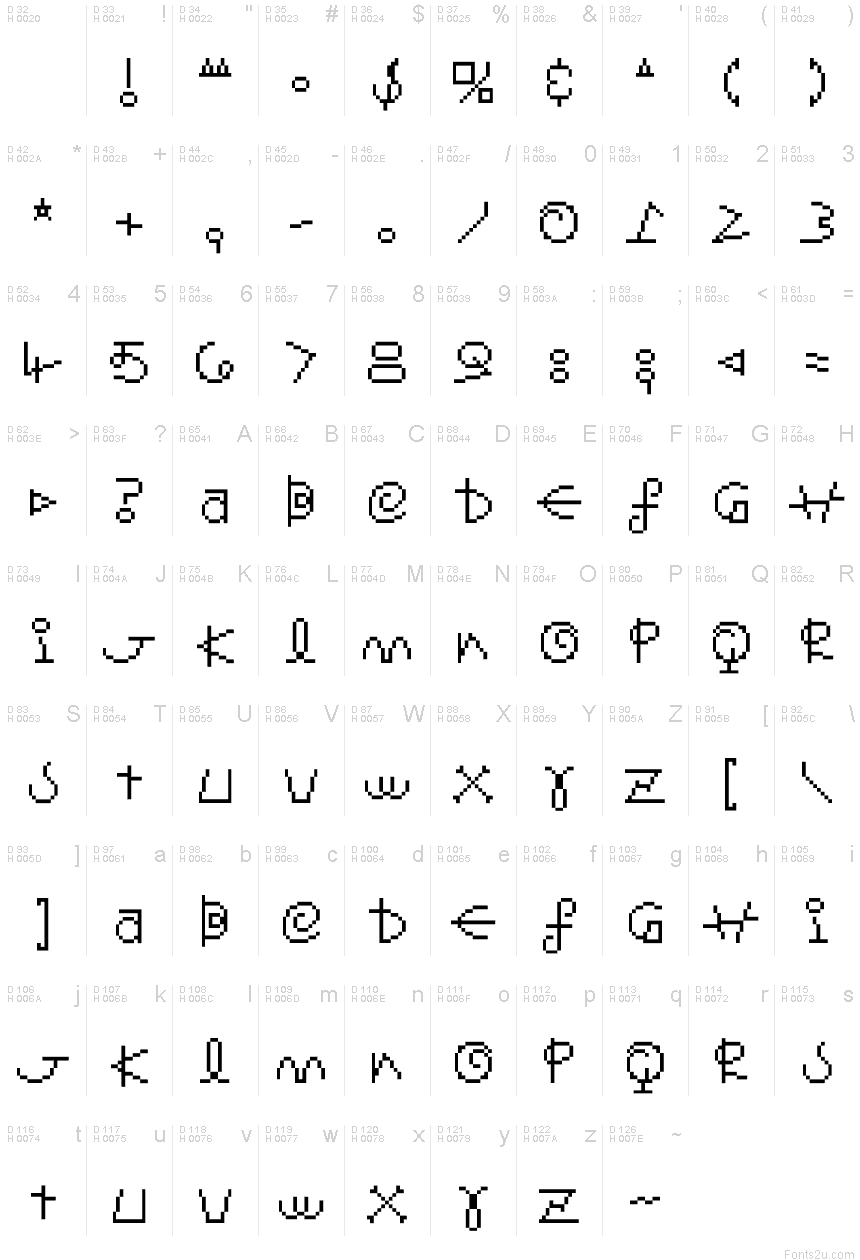
Senor Saturno
Senor Saturno, by Codeman38, is a free retro game bitmap font converted from Nintendo's EarthBound in 2001. The letters have that offbeat 16-bit wobble - chunky pixel curves, clipped corners, and uneven little bends that make the whole set feel handmade, friendly, and slightly alien.
It fits naturally in game UI mockups, pixel-art posters, zines, stream overlays, and playful branding that wants a console-era voice without going slick. As a free font, it works best in short lines, title cards, menu labels, and logo-like wordmarks, where those quirky stepped shapes and rounded pixel loops get room to do their strange charm.